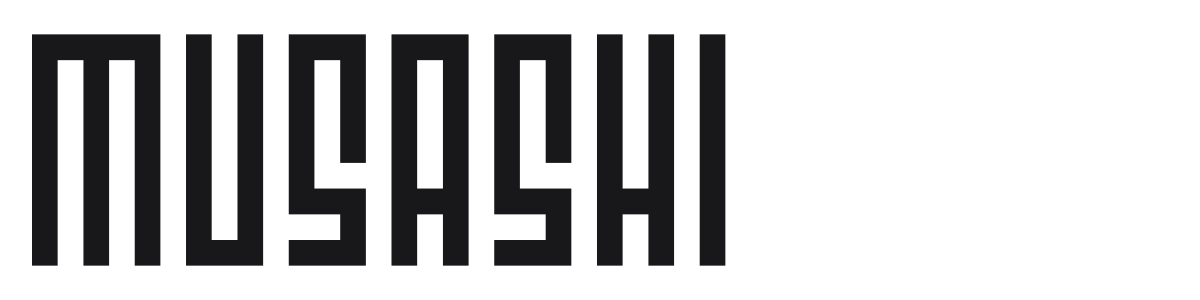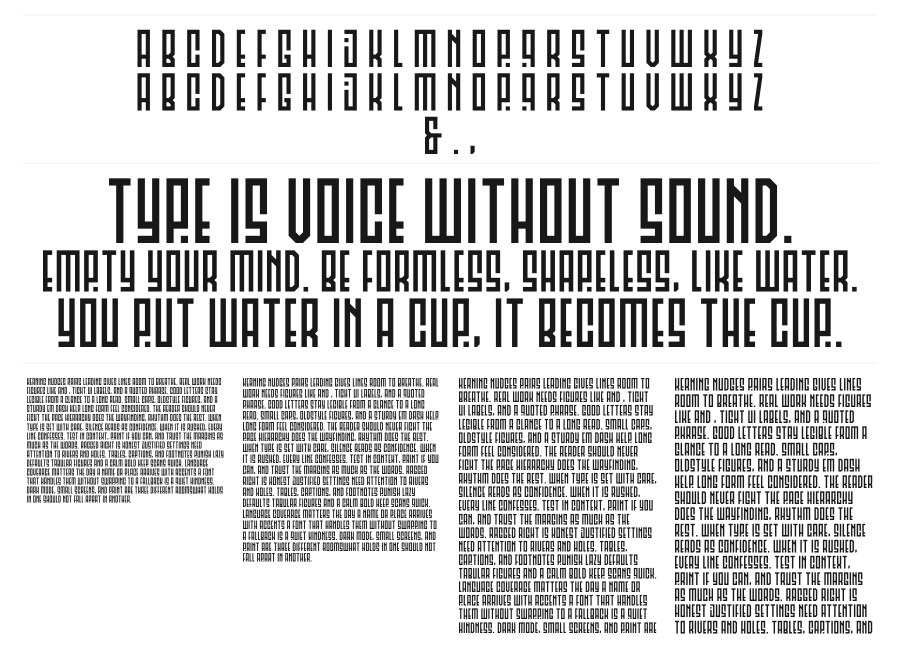
Musashi
Musashi is a super-condensed geometric display sans with angular, faceted terminals that draw from Bauhaus and Constructivist design traditions. The extreme vertical compression and diagonal corner cuts give it a raw, industrial strength that reads powerfully at large sizes. It suits sports branding, posters, and any headline context that needs presence without embellishment.